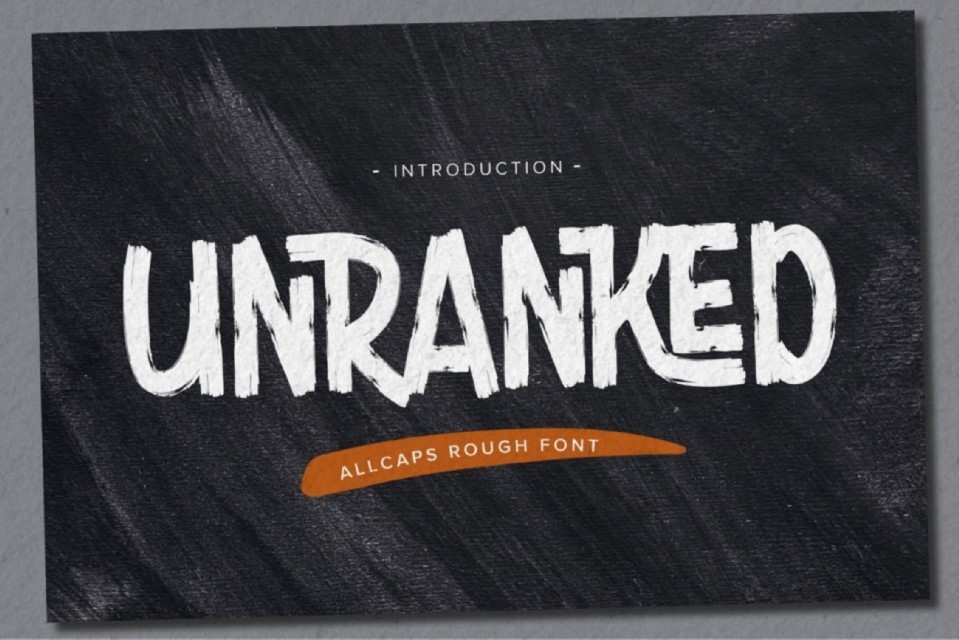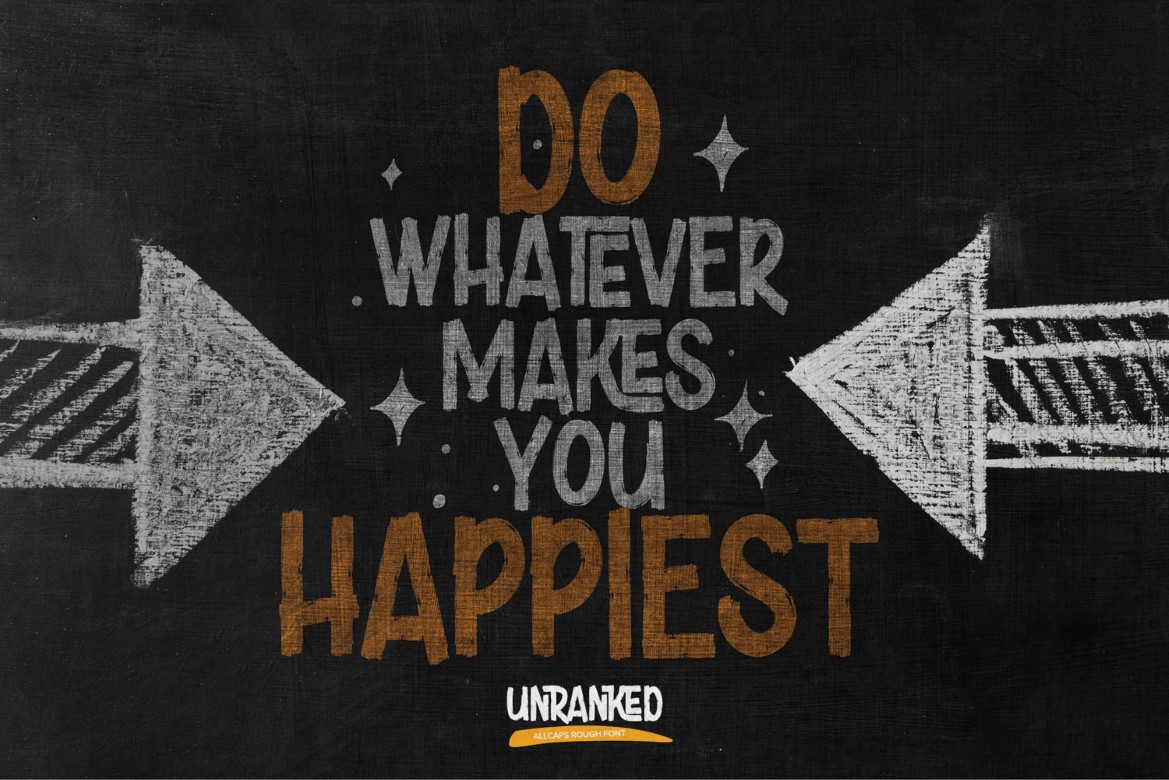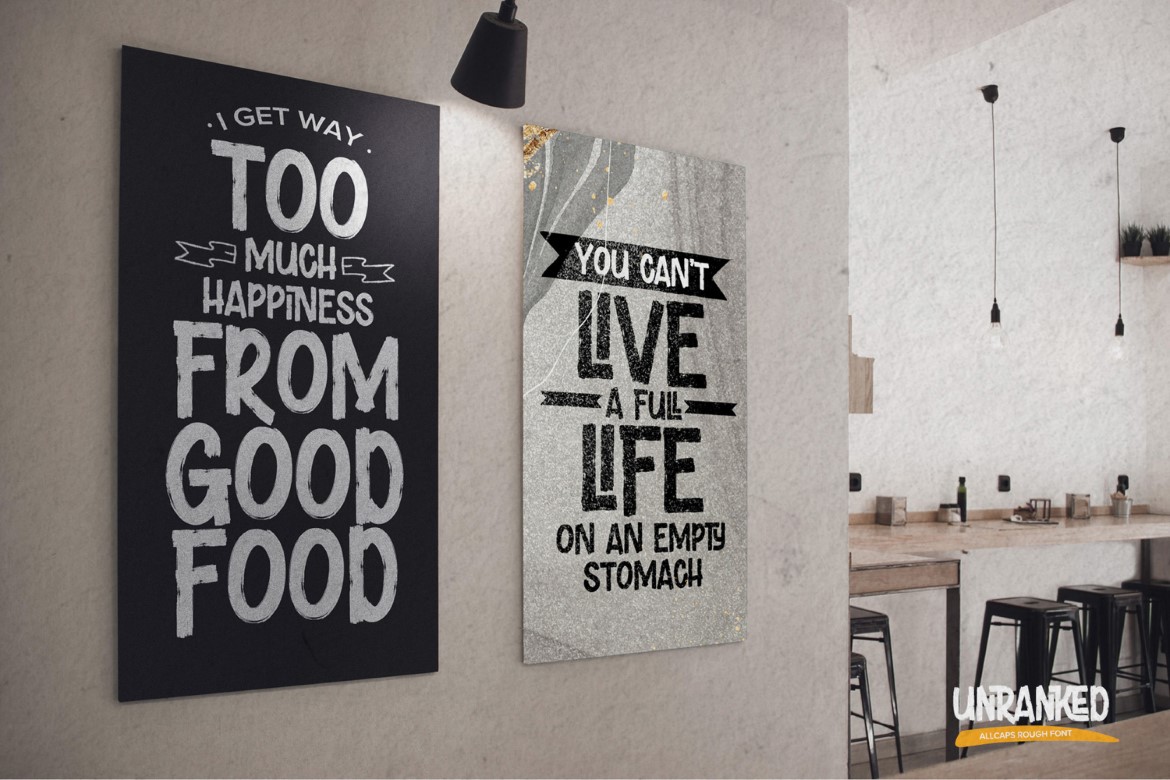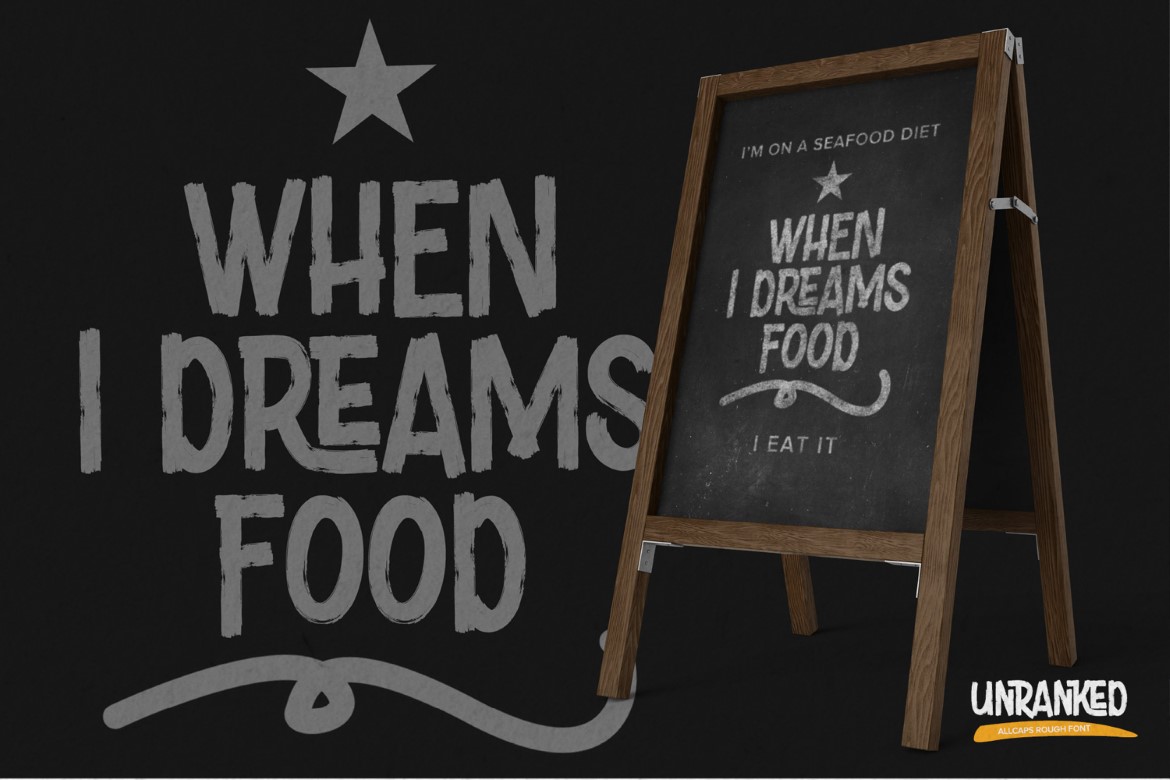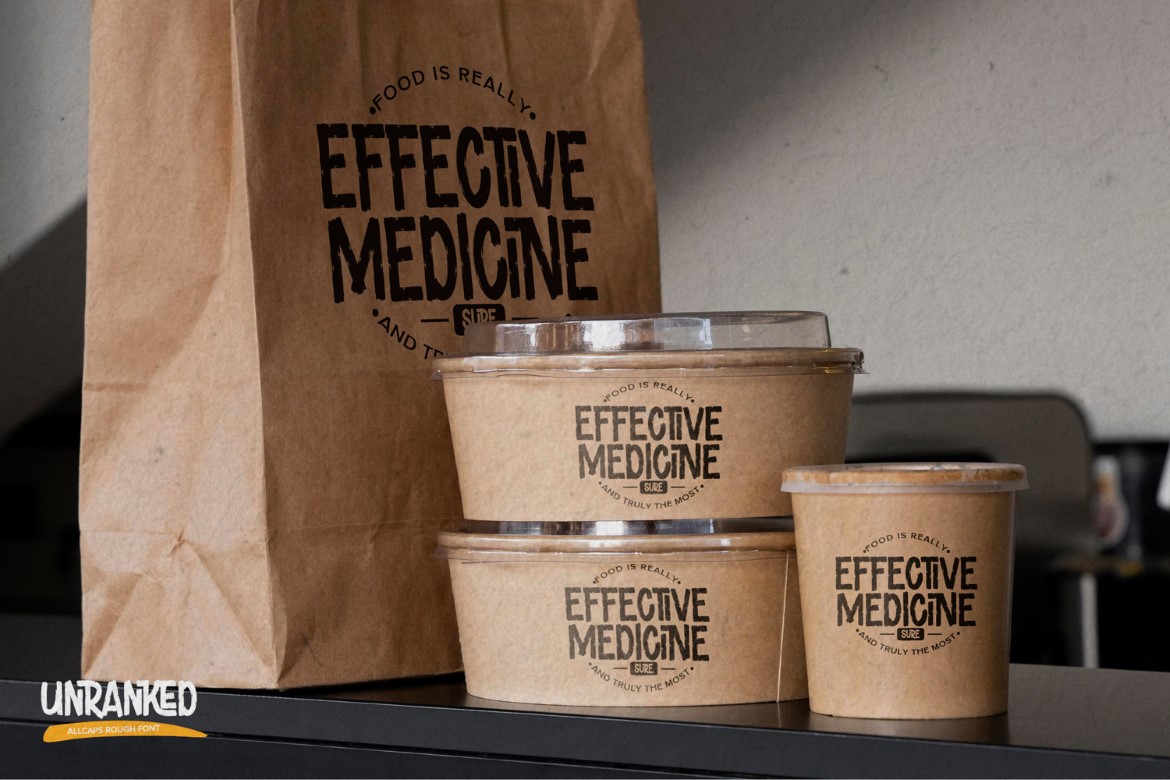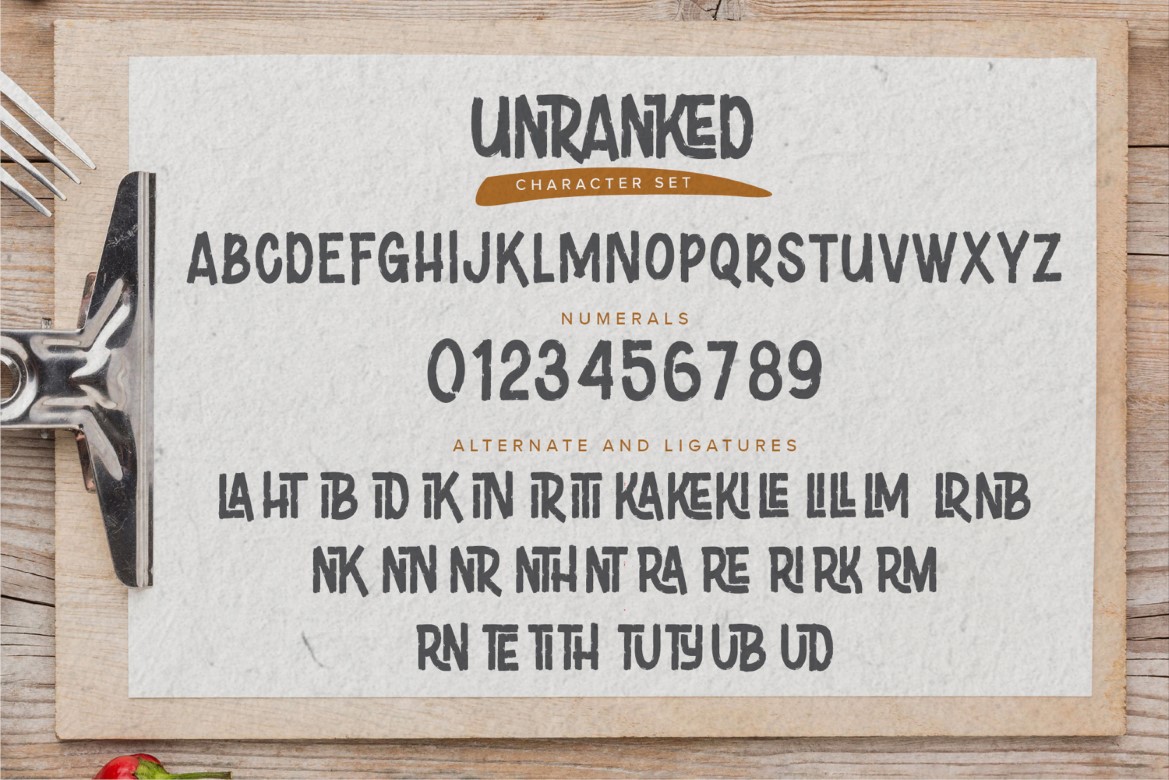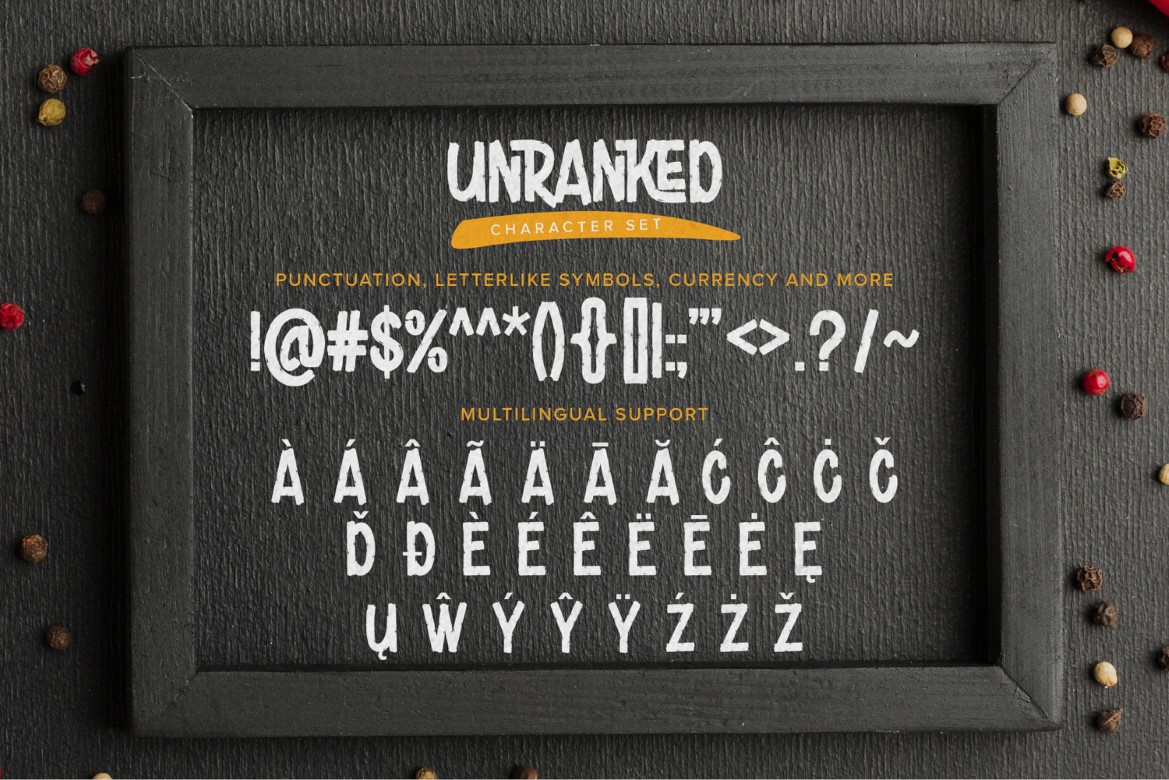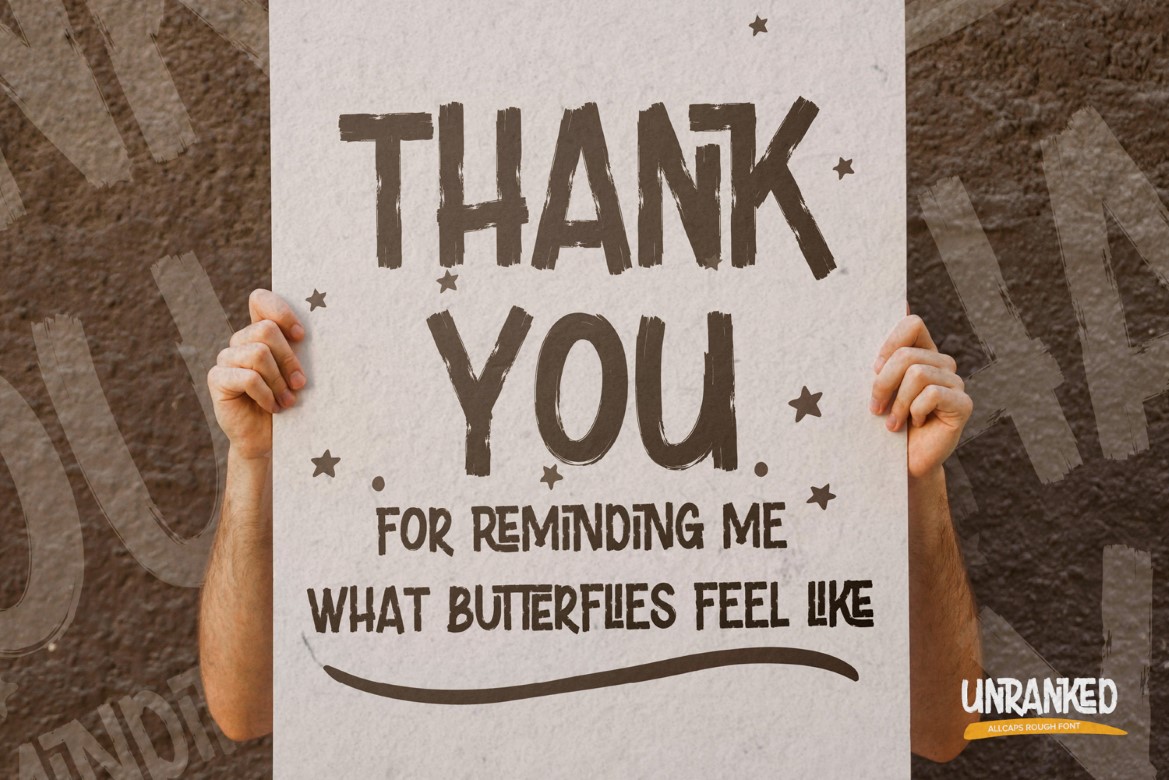
Unranked – All Caps Rough Font is an Authentic brush Font that is written casually and quickly.
That is why Unranked has a authentic, and strong characteristic more natural look.
Unranked Perfect for designs, branding projects, Logo design,Quotes product packaging and another Project that require cool strong brush font.